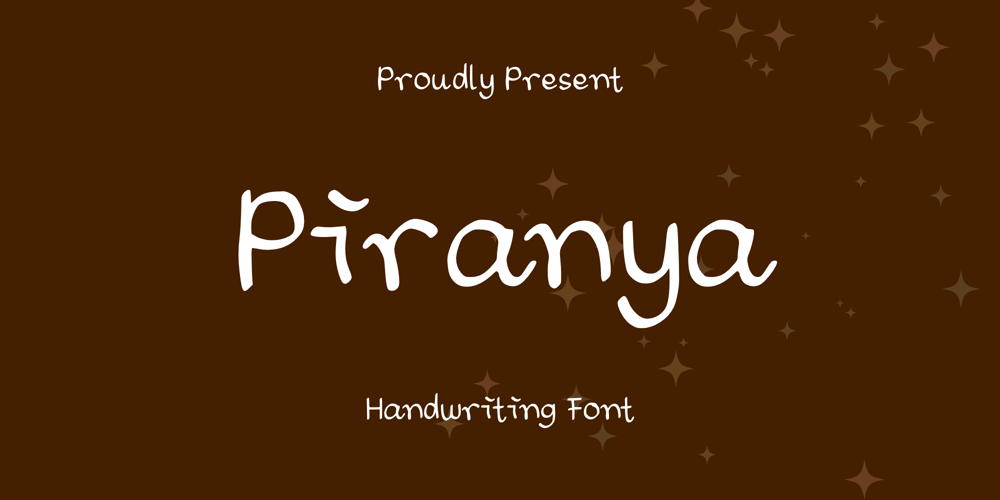
Piranya
Piranya font
Piranya Font Family was designed by published by Sidkia Fonts. Piranya contains 1 styles and family package options. Piranya is a simple, cute and regular handwritten font. You can use this beautiful font in postcards, greetings, or promotional banners.